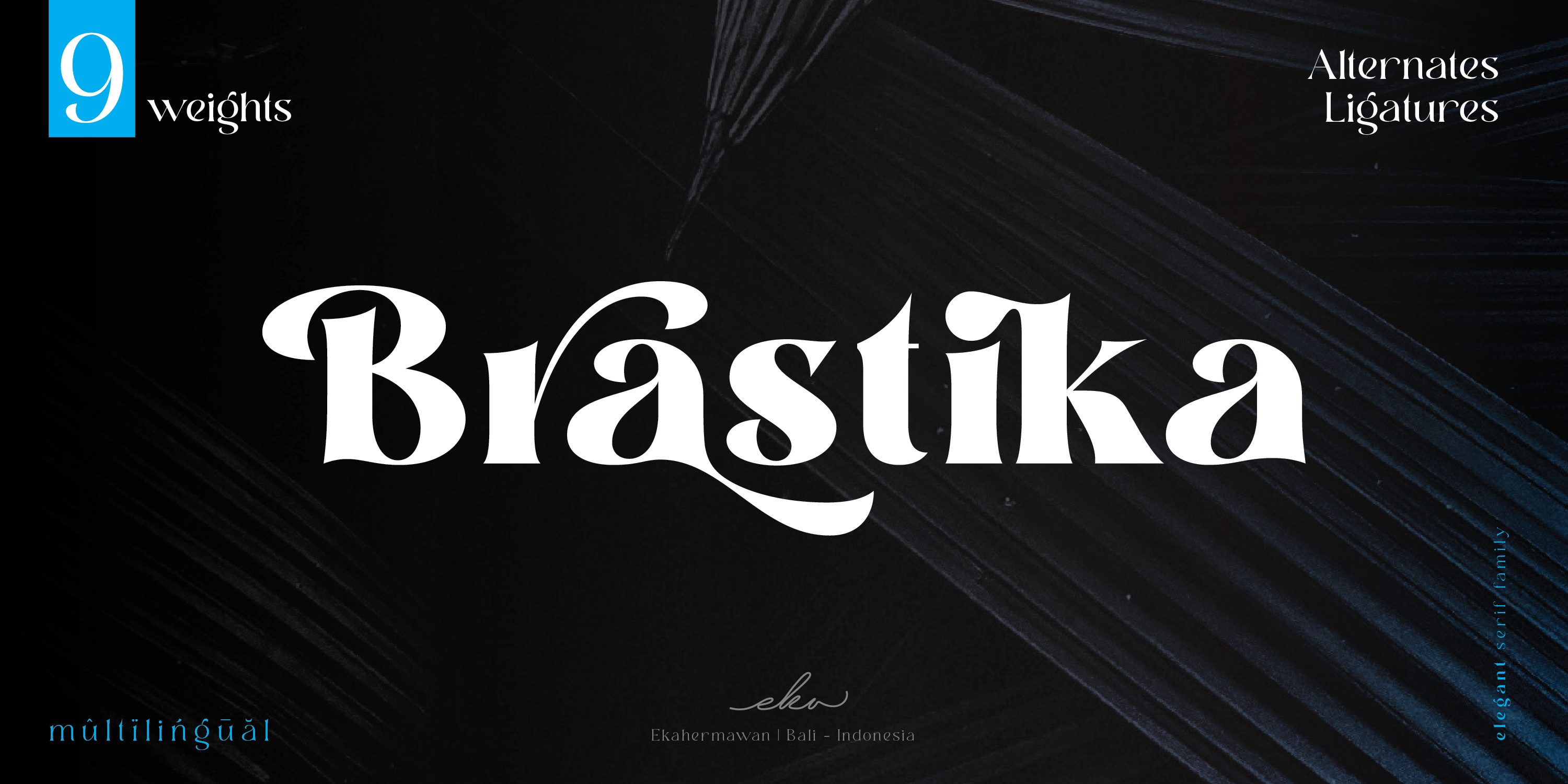
Brastika Font is perfect for bold brand identity, powerful corporate logos, strong advertising headlines, commanding business communications, authoritative poster designs, impactful editorial layouts, confident marketing materials, assertive signage projects, dynamic presentation graphics, and striking visual statements.
What makes Brastika Font so exciting is its commanding presence that embodies strength, confidence, and unwavering determination. This typeface features bold, structured letterforms with strong geometric construction and powerful visual weight that commands immediate attention. The font's authoritative and confident character communicates leadership and reliability, making it perfect for brands seeking to establish dominant market positions and connect with audiences who value strength, dependability, and the compelling power of bold, decisive communication.
Brastika Font family includes Regular, Bold, Black, and Condensed weights, along with extended and compressed variants that maximize impact possibilities. The family also features special character sets including power symbols, corporate elements, and authoritative decorative components that enhance the font's connection to strong leadership and commanding presence themes.
The Brastika Font Free Download package offers designers access to powerful commanding typography that brings authoritative strength to any professional project. This impressive typeface combines bold design principles with contemporary functionality, creating a compelling visual tool for leadership brands and authority-focused organizations. Whether you're developing corporate brand identities, designing powerful publications, or creating commanding marketing materials, this font provides the strong character needed to communicate leadership and establish dominant presence.
Brastika Font supports comprehensive character sets including Latin alphabets, numbers, punctuation marks, and special authority symbols. The font's powerfully constructed spacing creates visual impact while ensuring excellent readability across all applications. Its OpenType features include contextual alternates, strong ligatures, and commanding decorative elements that expand creative possibilities for authoritative design projects.
Professional designers choose Brastika Font for projects requiring authentic powerful appeal and commanding authority aesthetics. The font excels in applications where strength and leadership presence are essential, offering the perfect solution for brands seeking to communicate power, reliability, and dominant market position. Its bold character makes it ideal for corporate enterprises, leadership organizations, and authority-focused institutions.
The Brastika Font Free Download provides creative professionals with an exceptional opportunity to explore commanding typography. With its powerful character variations, authoritative design elements, and strong quality, this font represents outstanding value for designers, corporate organizations, and creative agencies specializing in leadership visual communications that celebrate strength, authority, and the compelling power of confident, commanding design excellence.